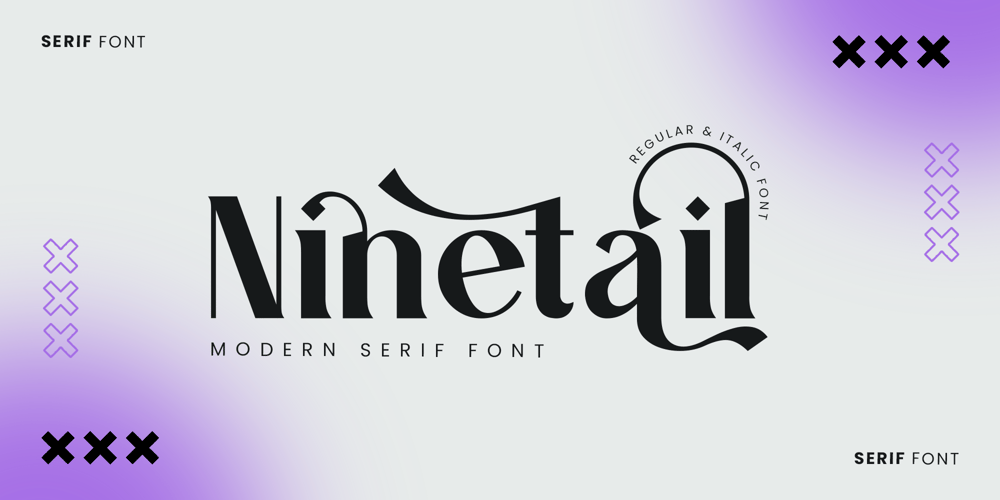
Ninetail Serif Font Family was designed by Ahmad Riqi and published by Slide Shoot. Ninetail Serif contains 2 styles and family package options. Ninetail Serif font duo is a balanced, smooth, elegant and stylish serif font. He has a beautiful character. It fits perfectly with invitation card designs, company logos, movie titles, movie names, business cards, book titles, brand names and various other designs. Ninetail Serif font duo is a subtle serif font that exudes sophistication and elegance. Its stylish alternations and ligatures make this font the perfect partner for any project.